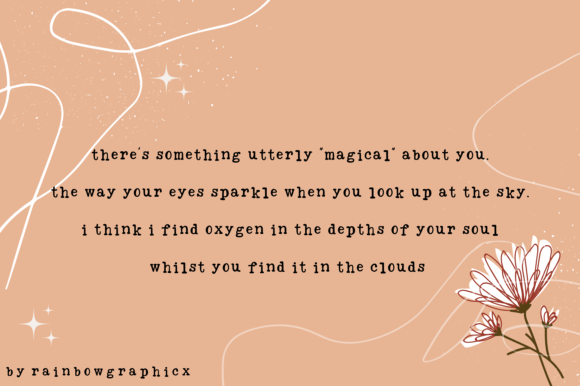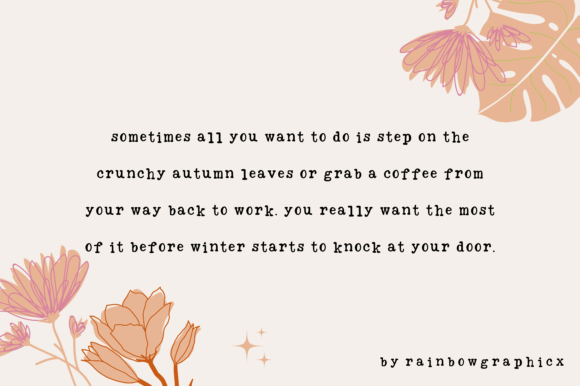
Discover the Charm of Field Trip Typewriter Font
Are you looking for a unique and creative font to add a personal touch to your digital letters, printables, templates, and coloring books? Look no further than the Field Trip Typewriter font! This delightful font is inspired by the beauty of field trips and is sure to bring a sense of adventure and fun to your designs.
What Sets Field Trip Typewriter Apart
The Field Trip Typewriter font stands out from other typewriter fonts due to its funky and creative vibe. It’s the perfect blend of playfulness and sophistication, making it ideal for designers and crafters who want to add a touch of whimsy to their work. Whether you’re creating digital letters, printable art, or templates, this font is sure to make your designs shine.
Uses for Field Trip Typewriter Font
The versatility of the Field Trip Typewriter font is one of its most appealing features. Here are just a few ideas for how you can use this beautiful font in your designs:
- Digital Letters: Add a personal touch to your digital letters with the Field Trip Typewriter font. Whether you’re sending a greeting card or a letter to a friend, this font is sure to make your message stand out.
- Printable Art: Create beautiful printable art with the Field Trip Typewriter font. You can use it to make inspirational quotes, fun phrases, or even just a simple message.
- Templates: Use the Field Trip Typewriter font to create custom templates for your favorite design software. Whether you’re making planners, journals, or other types of printables, this font is sure to add a touch of personality to your designs.
- Coloring Books: The Field Trip Typewriter font is also perfect for coloring books. You can use it to create fun and interactive titles, headings, and phrases that kids will love.
Tips for Using Field Trip Typewriter Font
Here are a few tips for getting the most out of the Field Trip Typewriter font:
- Experiment with Different Sizes: The Field Trip Typewriter font looks great in a variety of sizes. Experiment with different sizes to find the one that works best for your design.
- Pair it with Other Fonts: Don’t be afraid to pair the Field Trip Typewriter font with other fonts. You can use it as a heading font and pair it with a simpler font for the body text.
- Add Some Color: The Field Trip Typewriter font looks great in a variety of colors. Experiment with different colors to find the one that works best for your design.
The Field Trip Typewriter font is a unique and creative font that’s perfect for designers and crafters who want to add a touch of personality to their work. With its funky and playful vibe, this font is sure to bring a sense of adventure and fun to your designs. Whether you’re creating digital letters, printable art, templates, or coloring books, the Field Trip Typewriter font is a great choice.
Get Ready to Take Your Designs on a Field Trip!